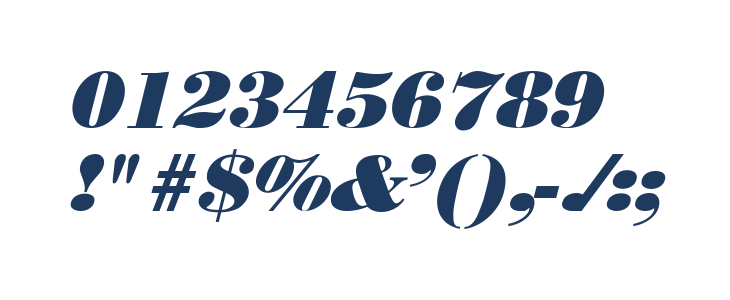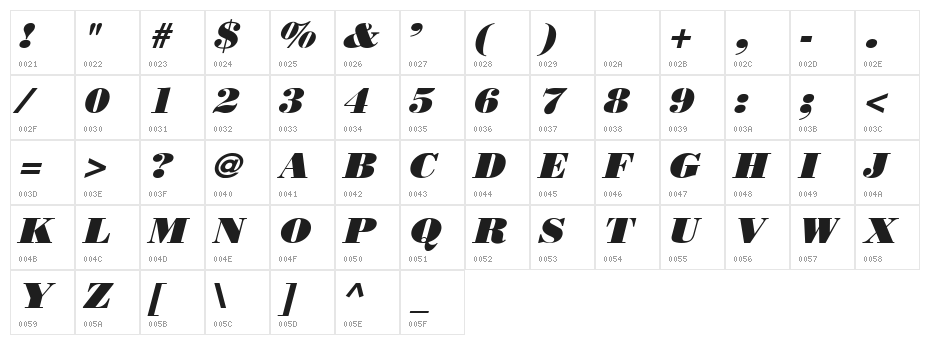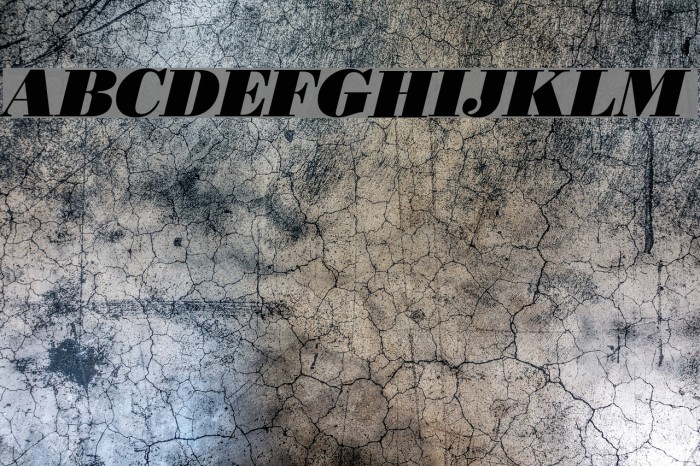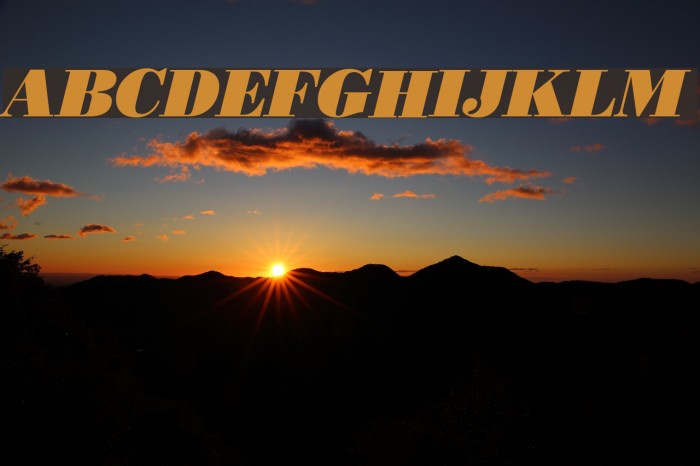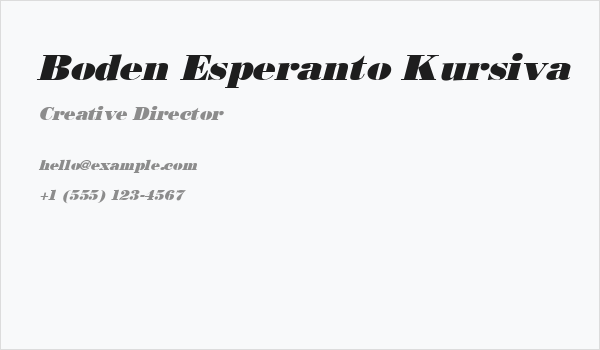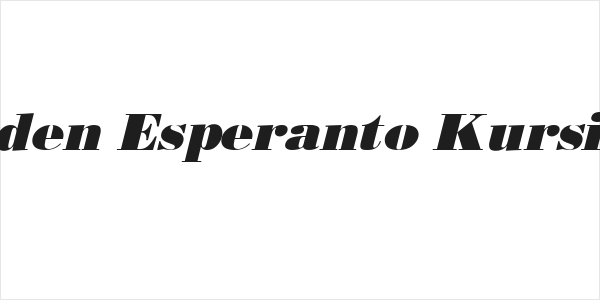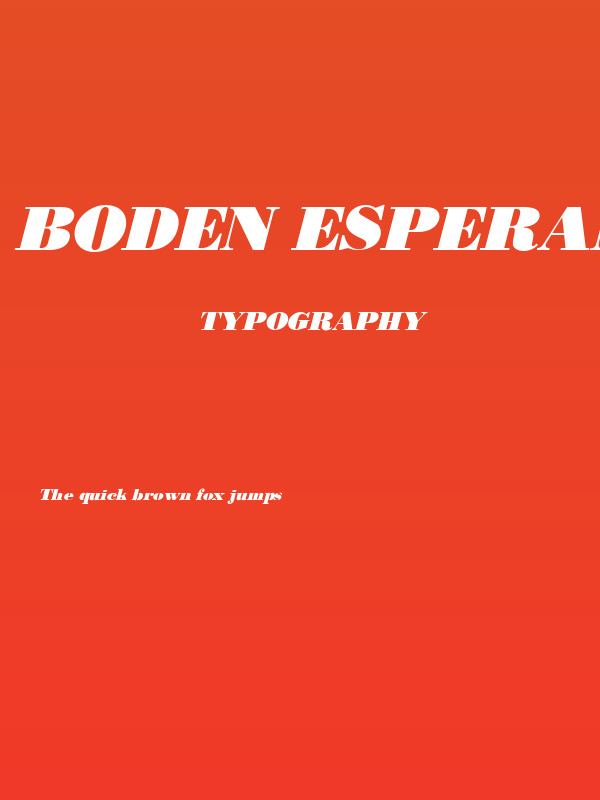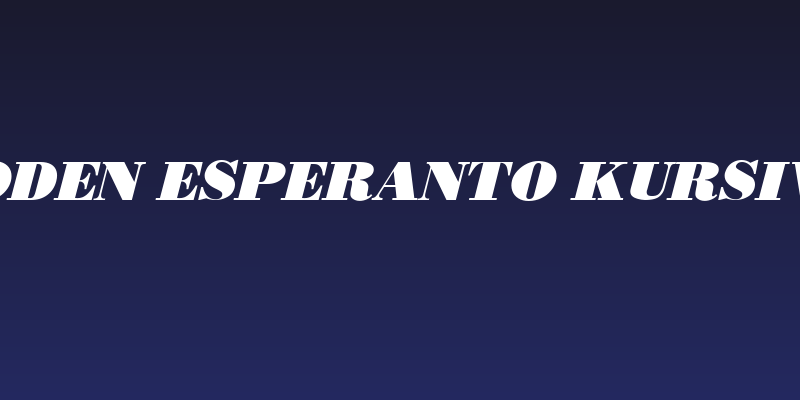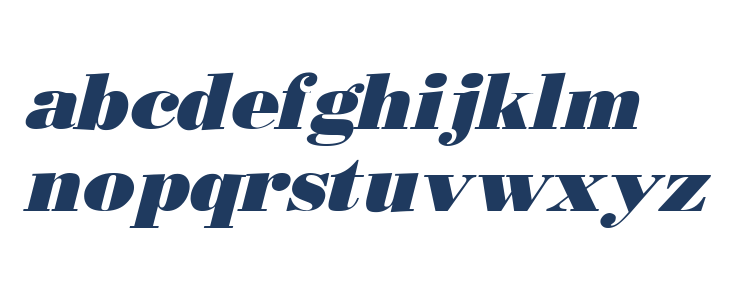
Boden Esperanto Kursiva Font
Boden Esperanto Kursiva Description
This font features a bold and dynamic style with a strong italic slant, giving it a sense of motion and elegance. The characters are well-defined with thick strokes, creating a high contrast between the thick and thin parts of the letters. The serifs are prominent and add a classic touch to the overall modern design. The uppercase letters are tall and commanding, while the lowercase letters maintain a consistent flow with slightly rounded edges. The numerals are bold and easily readable, matching the overall aesthetic of the font. Special characters are included, maintaining the same bold and italicized style, making this font versatile for various uses.
| Use Case | Headlines, Logos, Editorial design |
| Proposed Projects | Ideal for use in branding, headlines, posters, and editorial design where a strong and elegant presence is desired. |